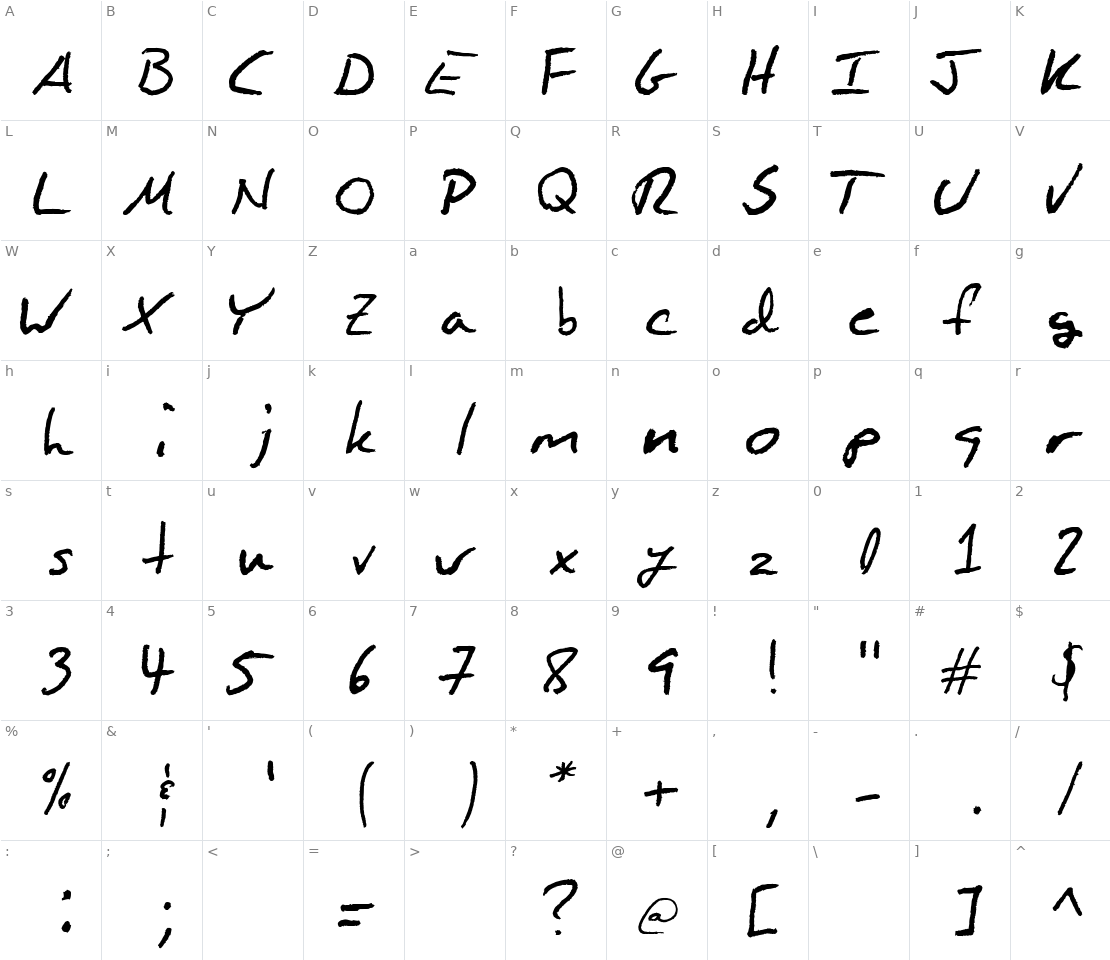
Blakeman Hand
Blakeman Hand is a casual pen script from Harried Type with the kind of natural inconsistency that makes it feel like actual handwriting rather than a font. The strokes vary in weight and spacing just enough to stay convincingly organic, giving it a personal, unforced quality. A good fit for informal branding, personal stationery, or anywhere you want type that reads like someone sat down and wrote it out.